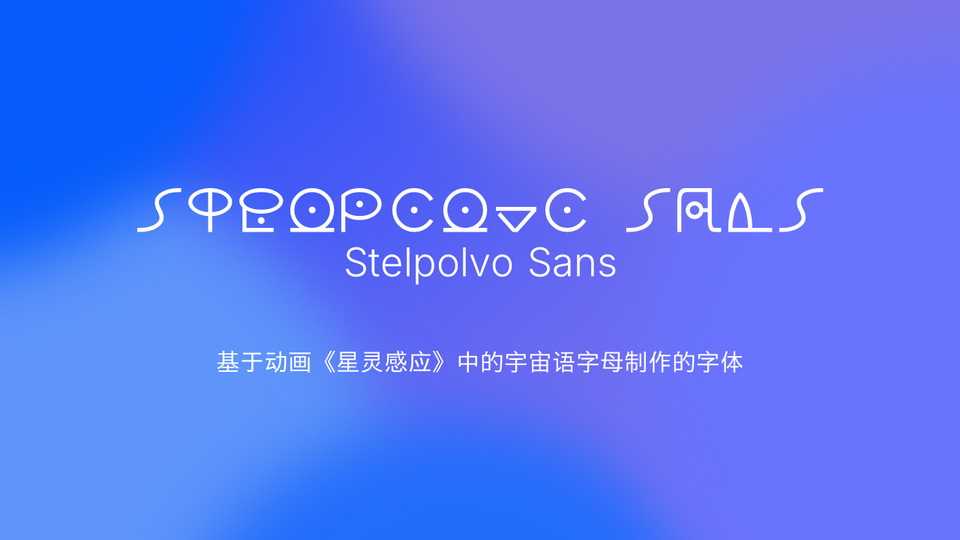
Download Stelpolvo Sans font, a display typeface based on letters of Cosmetic language from anime Stardust Telepath, which are derived from Esperanto letters. The name stelpolvo means stardust in Esperanto.
Designer: Saki Itomi